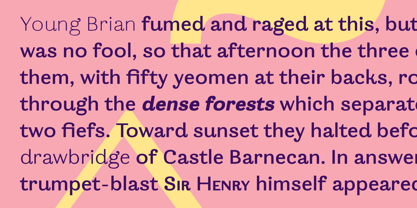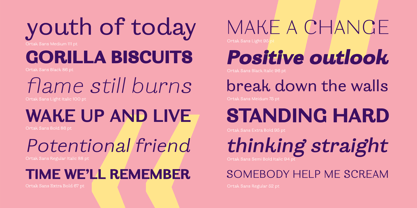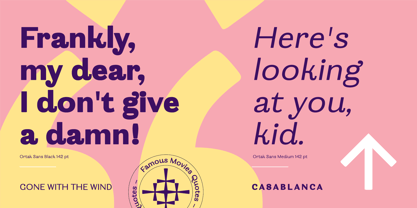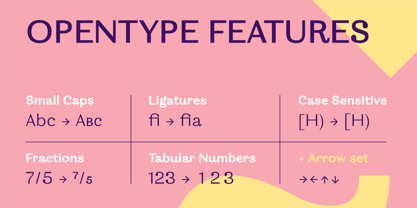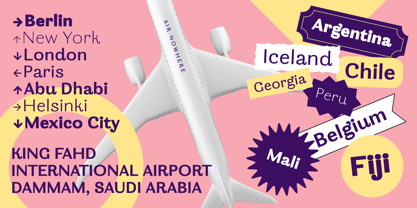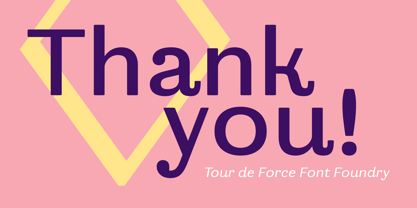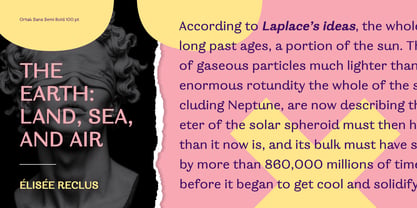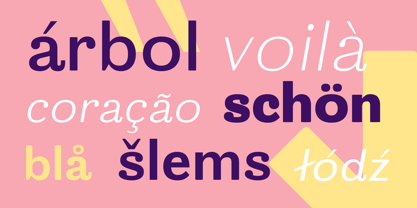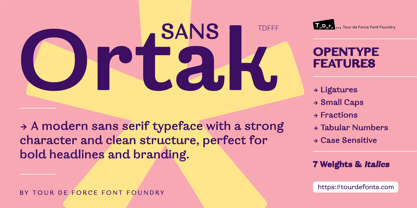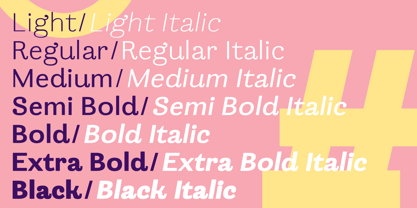
Ortak Sans
The Ortak Sans Font Family was designed by Dusan Jelesijevic and published by Tour De Force. Ortak Sans contains 14 styles and family package options. More about this family
Ortak Sans is a contemporary sans-serif typeface designed for clarity, character, and versatility. Its carefully balanced letterforms combine modern geometric structure with subtle humanist details, resulting in a font that feels both confident and approachable. With clean strokes, open counters, and well-controlled spacing, Ortak Sans delivers excellent legibility across a wide range of sizes — from small interface text to large display headlines. Built as a flexible type system, Ortak Sans includes multiple weights and matching italics that work seamlessly together. This makes it ideal for branding, editorial design, digital interfaces, packaging, and advertising. Designers can rely on its consistent rhythm and strong typographic color to create clear hierarchies and visually engaging layouts without sacrificing readability. For studios, agencies, and brands looking for a dependable yet distinctive typeface, Ortak Sans offers a practical licensing investment. Its modern personality adapts easily to different visual identities while maintaining a professional tone. Whether used in print or on screen, Ortak Sans provides the typographic reliability and aesthetic quality that professionals need for long-term design systems.
Designers: Dusan Jelesijevic
Foundry: Tour De Force